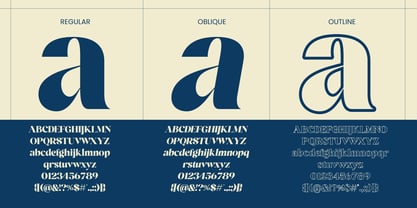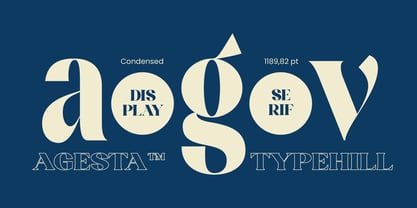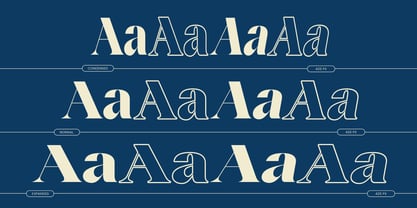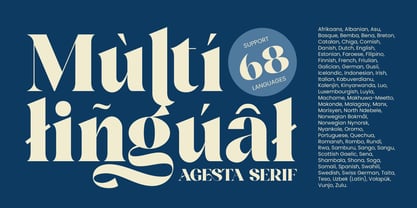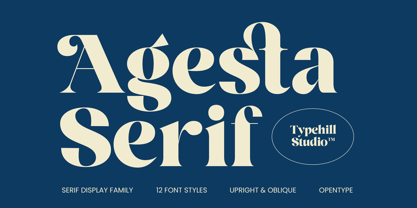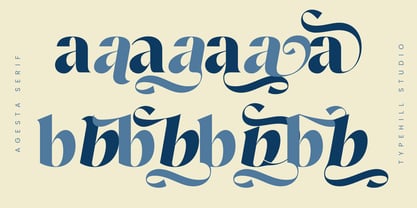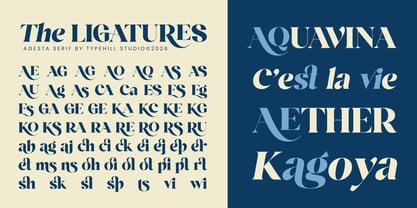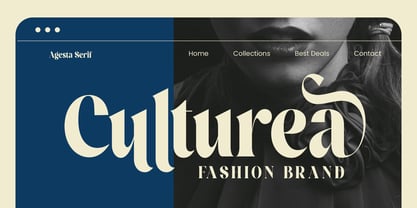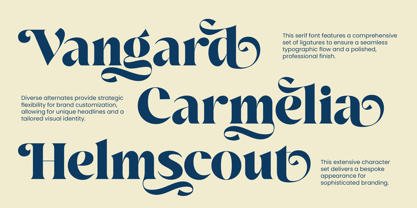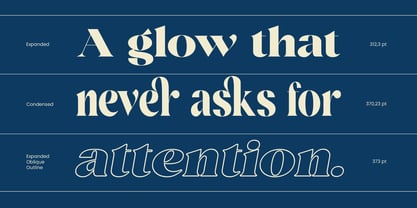
Agesta Serif
von Typehill Studio
Die Schriftfamilie Agesta Serif wurde von Teuku Fahruddin entworfen und von Typehill Studio veröffentlicht. Agesta Serif enthält 12 Stile und Familienpaketoptionen.
Agesta Serif is a refined serif display typeface designed to bring elegance and character to modern typography. With its smooth curves, distinctive letterforms, and balanced contrast, this typeface creates a sophisticated visual presence while remaining highly readable. Perfect for branding, editorial layouts, headlines, posters, packaging, and luxury design projects. Agesta Serif blends classic serif tradition with a contemporary touch, making it suitable for both timeless and modern design aesthetics. The family includes 12 font styles with upright and oblique versions, giving designers flexibility for a wide range of creative applications.
Designer: Teuku Fahruddin
Herausgeber: Typehill Studio
Foundry: Typehill Studio
Eigentümer des Designs: Typehill Studio